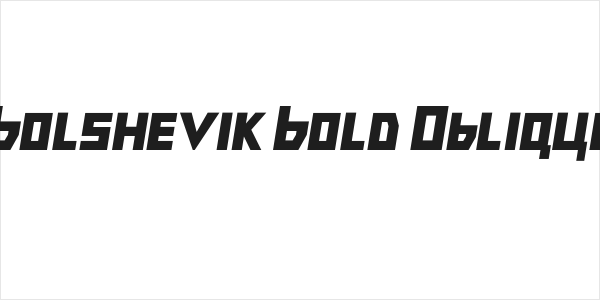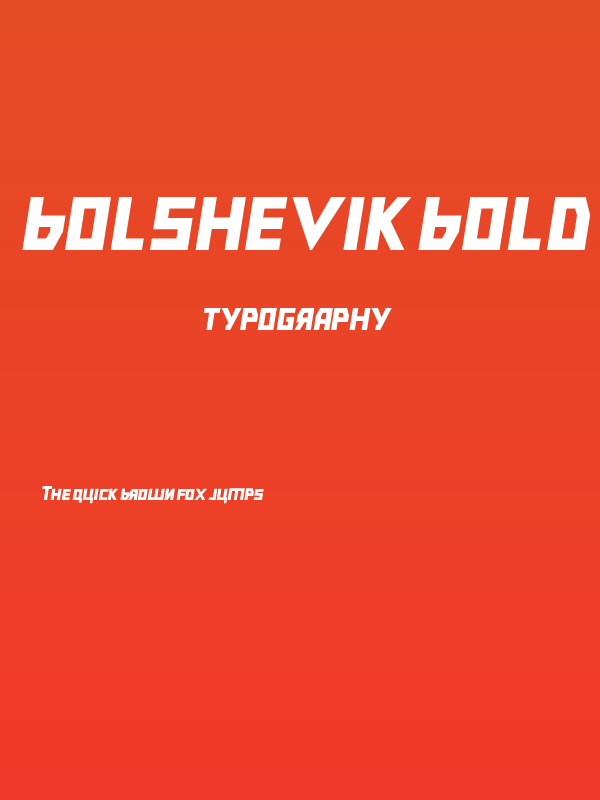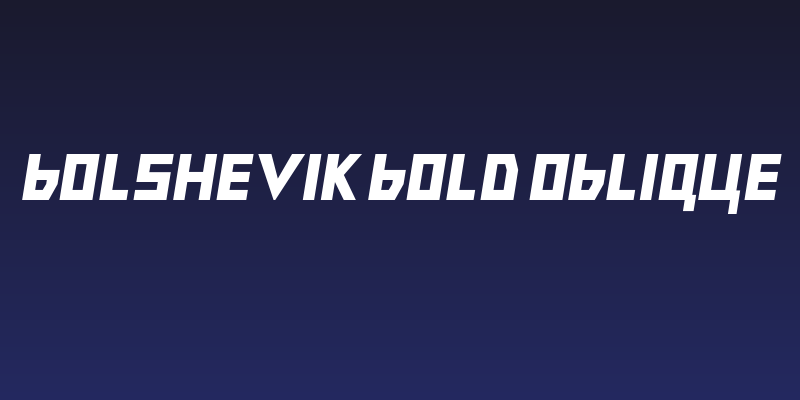
Bolshevik Bold Oblique Font
Bolshevik Bold Oblique Description
This font features a bold and oblique style, characterized by its strong geometric shapes and angular lines. The letters are designed with a distinct slant, giving them a dynamic and forward-moving appearance. The uppercase and lowercase characters maintain a consistent style, with sharp edges and a uniform weight throughout. The numerals are equally bold, matching the assertive style of the alphabet. Special characters are included, each designed to complement the overall aesthetic. This font exudes a sense of strength and modernity, making it suitable for impactful design projects.
| Proposed Projects | Ideal for posters, branding, and editorial design where a strong, modern impact is desired. |